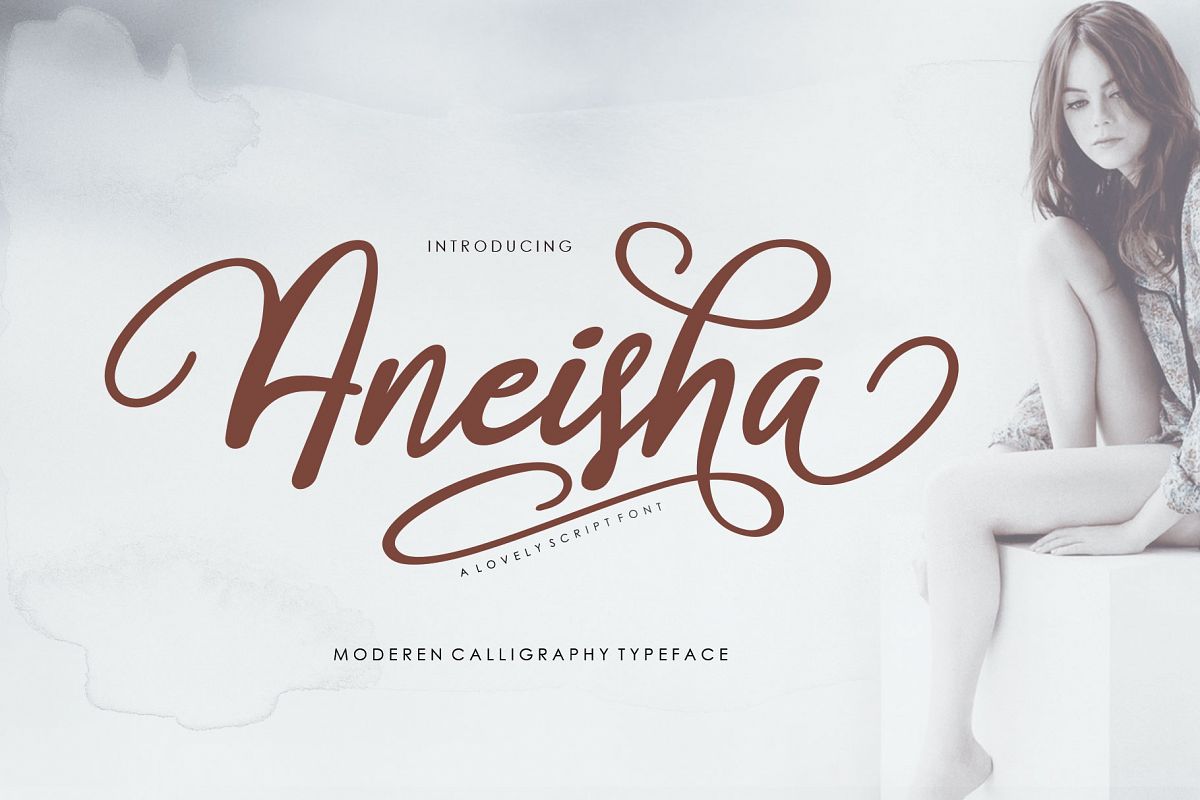
Aneisha Script
INTRODUCING the newest else is so beautiful and very elegant that are designed to compliment each other perfectly.
Aneisha Script : It comes with a complete set, Standard Aligature, Stylistic Set and Swash. This Font features 409 glyphs and this Font has given PUA unicode (specially coded fonts). So that all the characters can easily be accessed in full by a craftsman or designer. It is perfect for logos, quotes, badges, labels, packaging designs, blogs, websites, designs, headlines, banners, posters, prints, T-shirts, magazines, promotional products, templates, etc.
Features Basic Latin A-Z and a-z Numbers Symbols & Multilingual Support